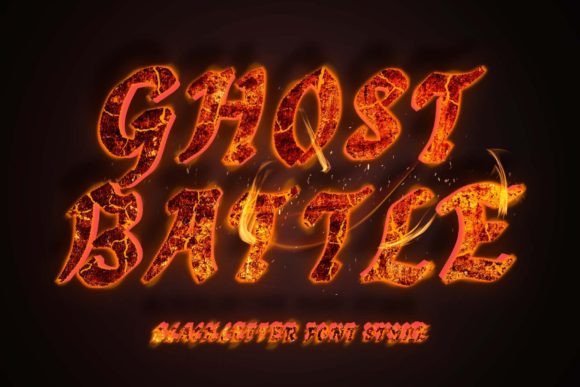
Step into the world of elegance and enchantment with "Ghost Battle," a breathtaking blackletter font that captures the essence of mystery, passion, and intrigue. This captivating font is a true masterpiece crafted by the visionary artist yogaletter6, designed to ignite your imagination and elevate your creative projects to new heights.
With its intricate flourishes, sharp edges, and captivating curves, "Ghost Battle" exudes an aura of sophistication and intrigue. This font is not just a collection of letters; it's an expression of art, a symphony of visual delight that will transform your designs into mesmerizing works of art.
Immerse yourself in the world of "Ghost Battle" and experience the allure of the blackletter style brought to life in a modern and captivating way. This font is the perfect companion for your tattoos, posters, Halloween-themed designs, stickers, Christmas cards, logos, banners, branding initiatives, fall-inspired projects, wedding invitations, engagement announcements, photography, and so much more.
Unleash your creativity and let "Ghost Battle" take you on a journey of visual storytelling. Its versatility knows no bounds, allowing you to explore a wide range of aesthetics, from the hauntingly beautiful to the charmingly whimsical. With its extensive character set, including uppercase, lowercase, numerals, punctuation, and multilingual support, "Ghost Battle" empowers you to craft designs that resonate with audiences worldwide.
Escape the mundane and embrace the extraordinary with "Ghost Battle." This font is not just a tool; it's a portal to a realm of imagination and wonder, where your designs will come alive with a captivating narrative. Let your creativity soar and let "Ghost Battle" be your guide on this enchanting journey.